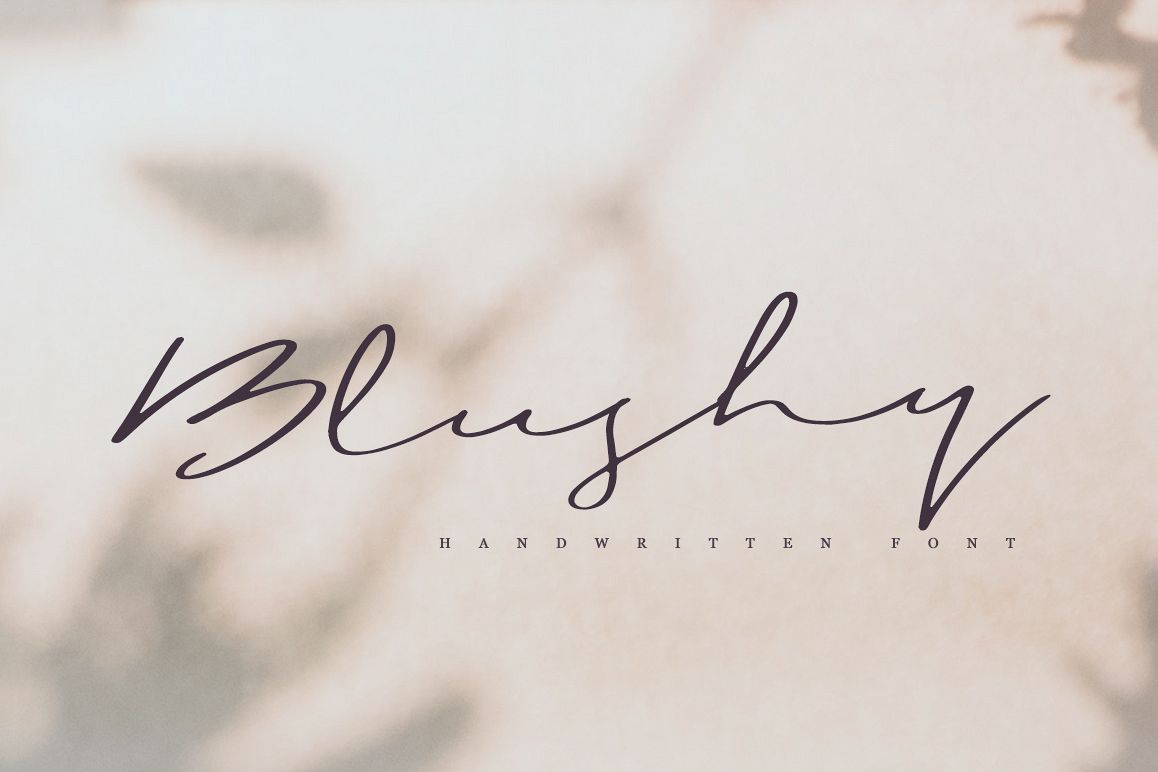
Blushy
Blushy-Regular
This handwritten script has been attentively written, with gentle curves to produce a font thats completely distinctive and original. Perfect for adding a elegant and unique touch to your lettering projects and brandingAlso with their help, you can create a Wedding lettering or beautiful frame for your home. Or just use for your small business, book covers, stationery, marketing, magazines and more.
Blushy